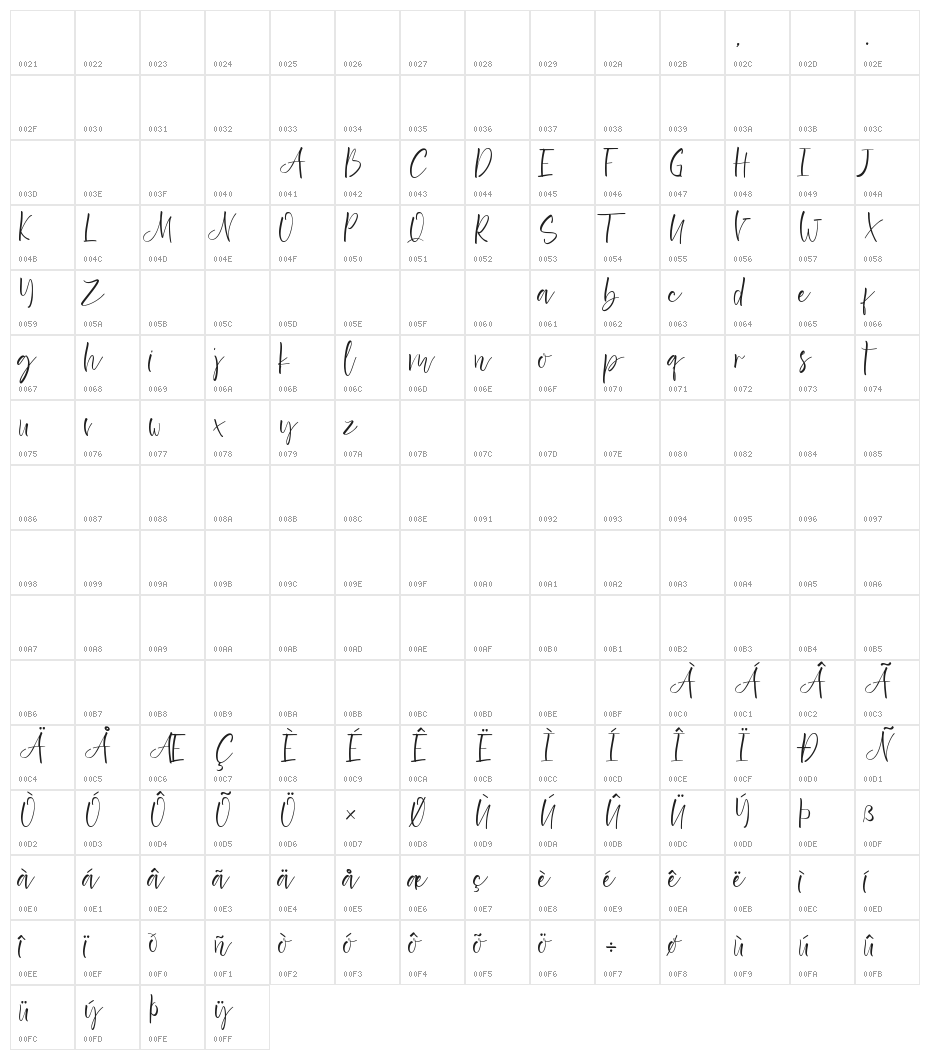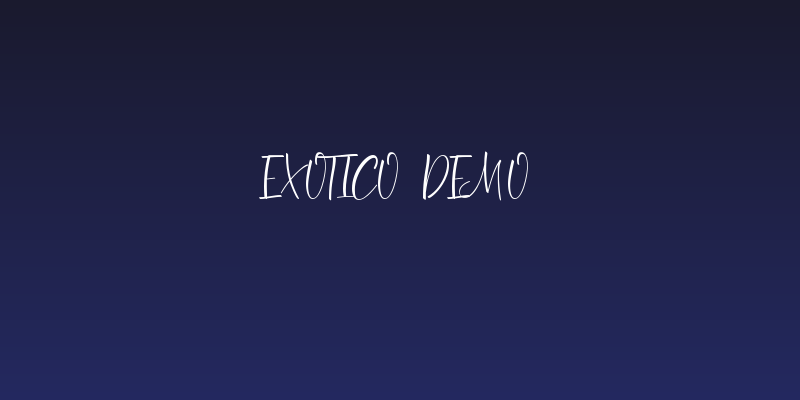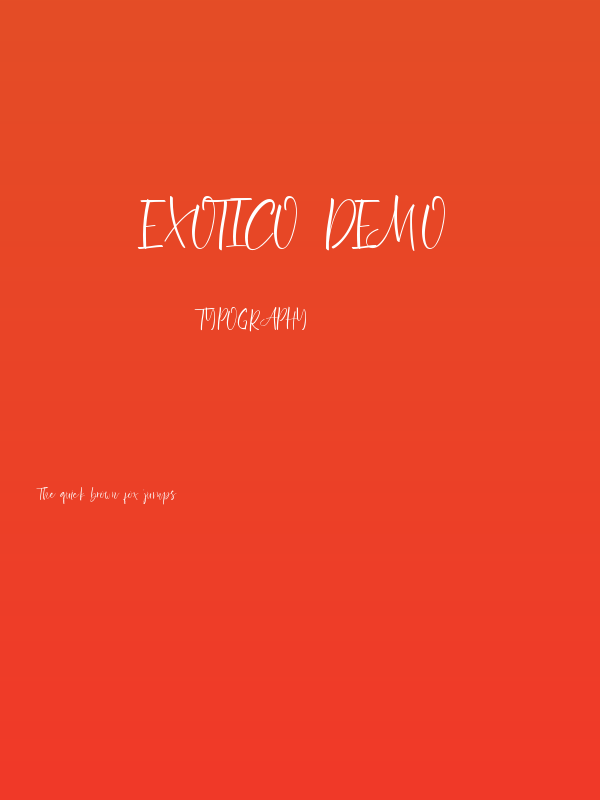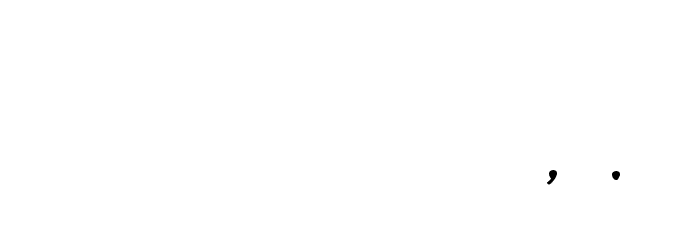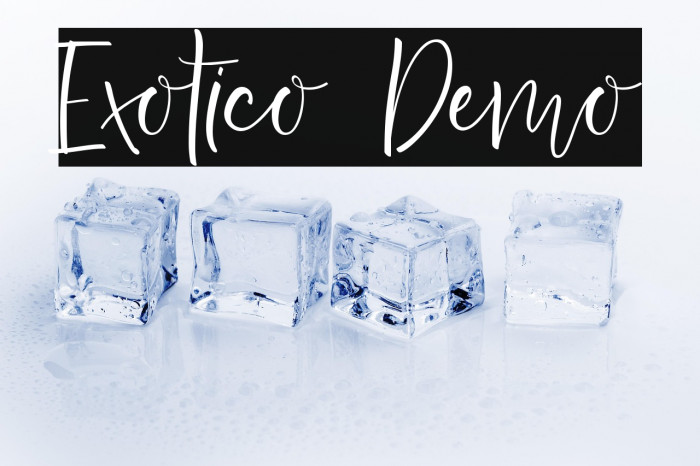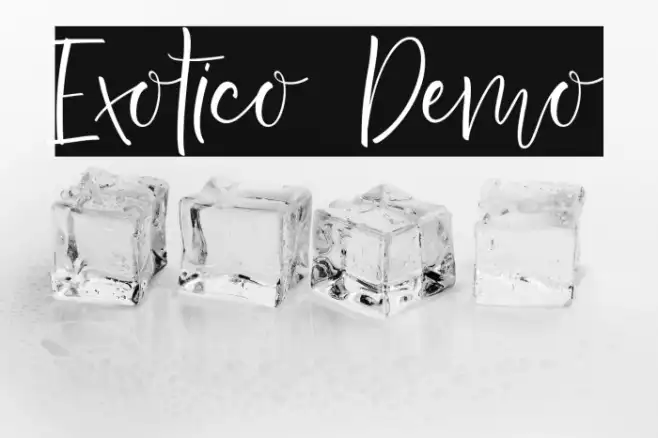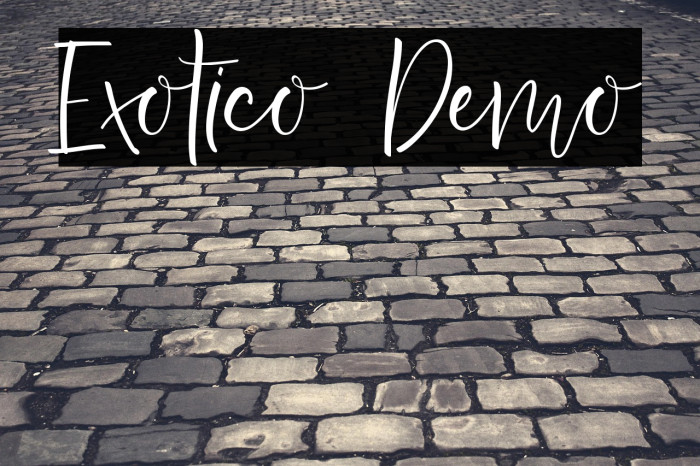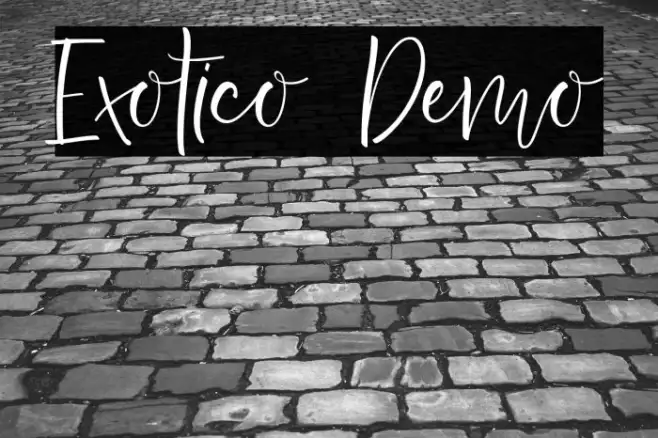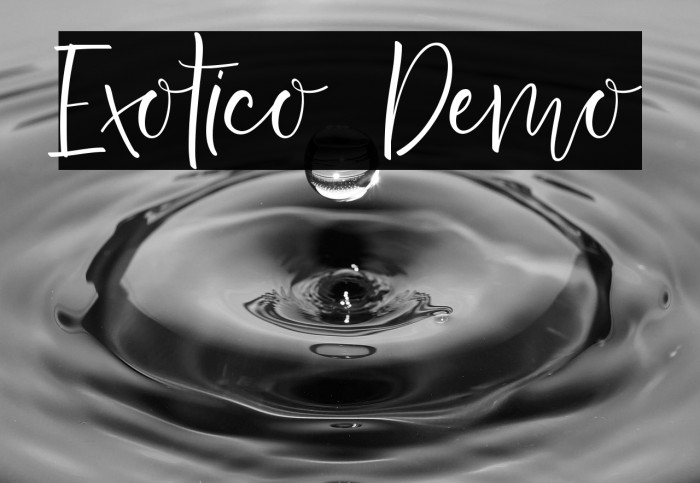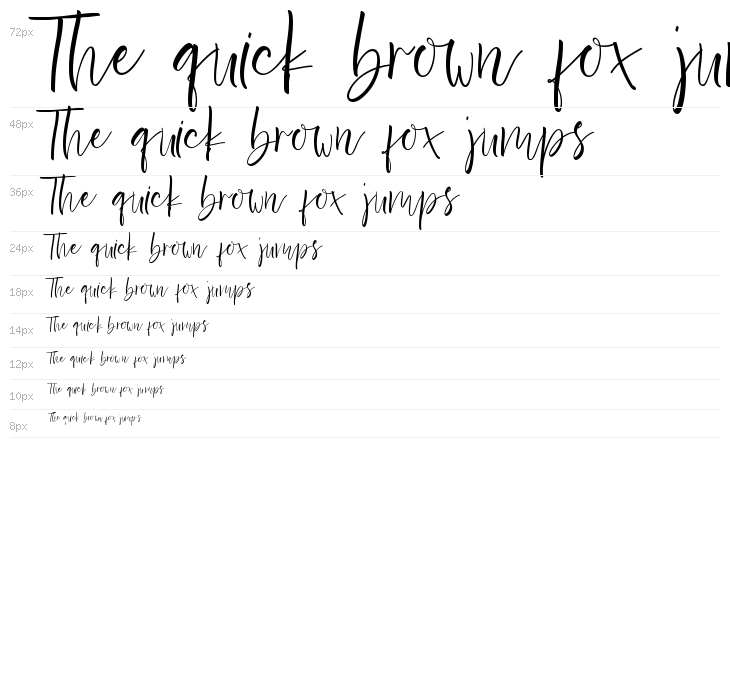
Exotico Demo Font
Exotico Demo Description
This font features a lively and expressive handwritten style, characterized by its fluid and dynamic strokes. The letters exhibit a playful and artistic flair, with varying line thicknesses that add a sense of movement and energy. The uppercase letters are tall and elegant, while the lowercase letters maintain a consistent flow, enhancing readability. The overall design is both modern and whimsical, making it suitable for creative and informal applications. The unique character shapes and slight slant give it a personal touch, perfect for projects that require a humanistic and approachable feel.